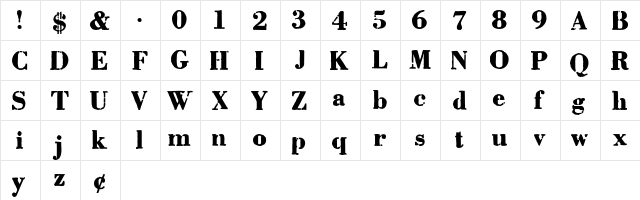
Plastik Film Regular Font Preview
Plastik Film Regular
Plastik Film Regular Font Details
Design Context for Plastik Film Typeface
Plastik Film takes a measured approach to typography — its balanced proportions and neutral character make it a reliable workhorse for both digital and print work.